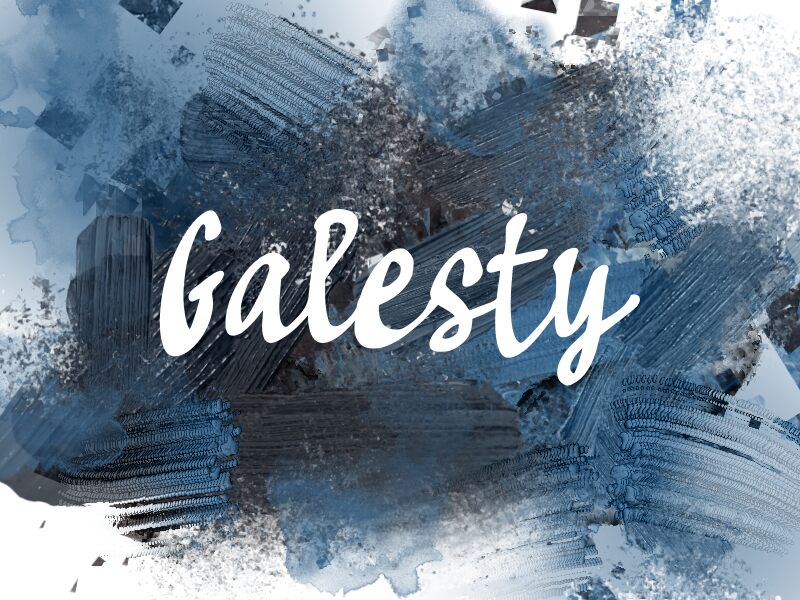
Galesty
Galesty font by wep exudes a dynamic, artistic flair with its brush style and condensed width. The bold, flowing strokes create a sense of movement and elegance, making it ideal for projects that require a personal touch. Perfect for branding, invitations, or creative headlines, Galesty's free font download offers designers the flexibility to enhance visual storytelling with its unique charm.
The visually striking characteristics make it suitable for both casual and formal designs, ensuring your message stands out with personality and style.